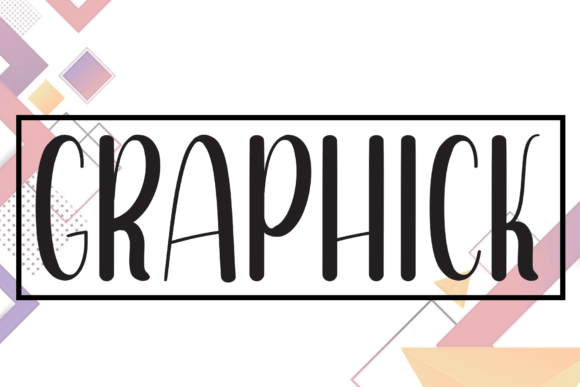
Unleash the charm of your creative expressions with the enchanting Graphick Font, a captivating script font brimming with personality and elegance. Step into a world of visual artistry where your words dance with grace, capturing the hearts and imaginations of your audience.
Immerse yourself in the allure of Graphick's beautiful curves and flourishes, meticulously crafted to evoke a sense of warmth and sophistication. Its free-flowing strokes exude a timeless appeal, reminiscent of handwritten love letters and cherished memories.
Designed with versatility in mind, Graphick effortlessly adapts to a myriad of creative endeavors. Whether you're crafting wedding invitations that whisper of romance, designing greeting cards that spread joy, or creating social media posts that captivate your followers, Graphick is your steadfast companion.
With every letter you type, Graphick transforms your digital canvas into a visual masterpiece. Its delicate strokes add a touch of whimsy to invitations, while its elegant curves lend a touch of formality to business documents. Unleash your creativity and let Graphick guide you to new heights of expression.
In a world saturated with ordinary fonts, Graphick stands apart as a beacon of originality and charm. Its unique style ensures that your designs will leave a lasting impression, captivating your audience and leaving them yearning for more.
So, embark on a creative journey with Graphick, the script font that ignites your imagination and sets your designs apart. Let your words dance with grace and your creations bloom with beauty, all thanks to the magic of Graphick.